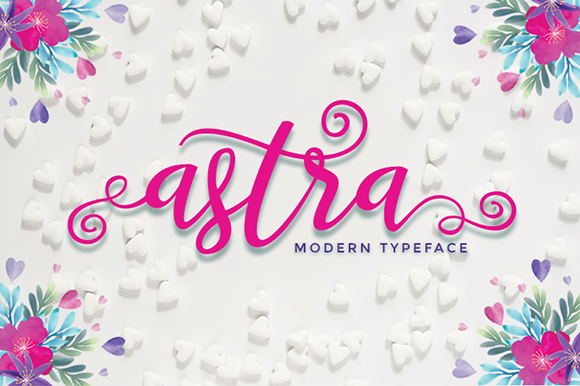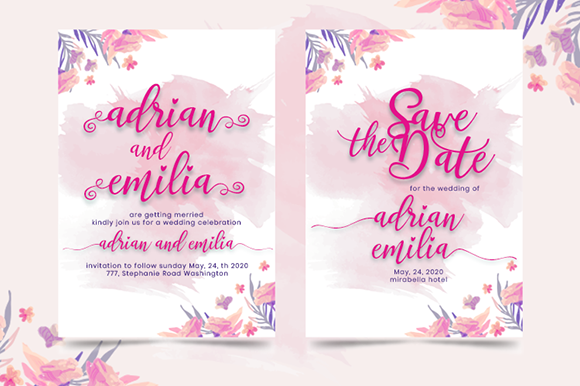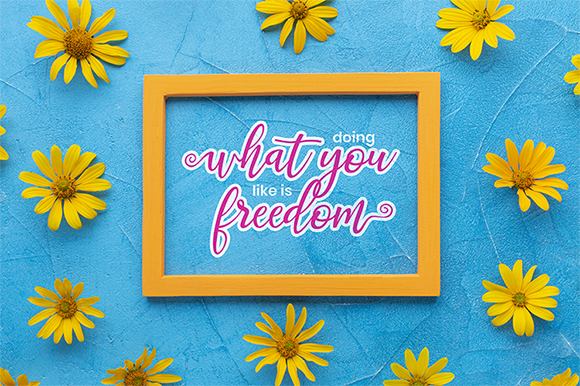
Astra Font
About Astra Font
Astra is a gorgeous and modern script font that feels both playful and elegant. This gorgeous crafting script makes a great addition to any font library!